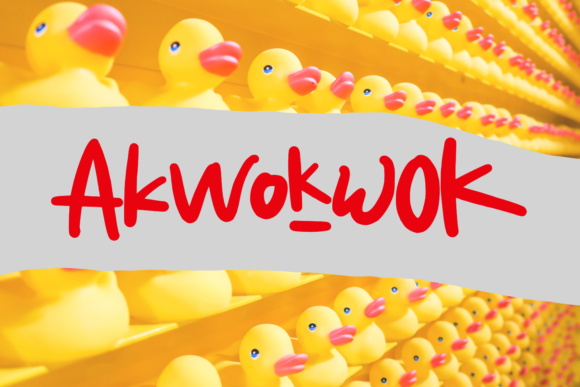
The Ultimate Guide to Akwokwok Font: A Cute and Playful Design Essential
I’ll never forget the time I was working on a project for a children’s book, and I just couldn’t find the right font to match the playful tone of the story. The client wanted something fun, yet professional, and I was on a mission to deliver. That’s when I stumbled upon the Akwokwok font, and it instantly became my go-to choice. In this article, I’ll share my experience with Akwokwok, its features, and how to make the most of it in your designs.
An Honest Review of Akwokwok Font
Akwokwok is a cute and playful font that’s perfectly suited for a wide variety of projects. Here’s what I love about it:
• ✨ Unique and quirky character designs that add a touch of personality to any project
• 🎉 Extensive range of OpenType features, including glyphs and stylistic alternates
• 🌈 Perfect for designs that require a playful and whimsical touch
However, there are a few small quirks to be aware of:
• 🤔 Some characters may not work well in all contexts, such as in combination with certain punctuation marks
• ⚠️ Limited support for non-English languages
The Backstory of Akwokwok Font
Akwokwok is a font designed with the intention of creating a playful and whimsical typeface that’s perfect for designs that require a touch of personality. The designer aimed to create a font that’s both fun and professional, making it suitable for a wide range of projects.
What is the Akwokwok font best used for? Akwokwok is best used for designs that require a playful and whimsical touch, such as children’s books, greeting cards, and social media graphics.
Does Akwokwok support non-English languages? Akwokwok has limited support for non-English languages. If you need to use the font for a project that requires support for a specific language, be sure to check the font’s language support before purchasing.